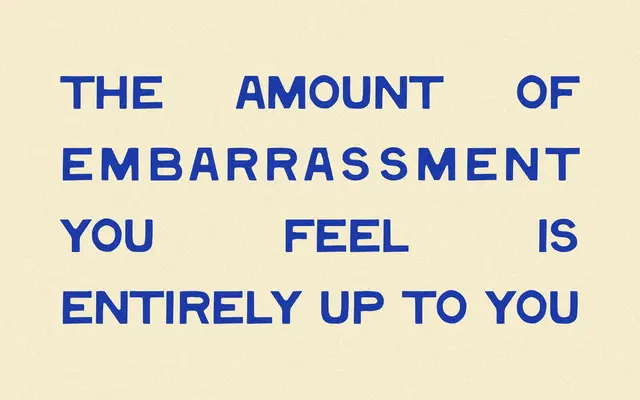
Dreamboat
Dreamboat specimen from Taylor Penton
A wide, soft-edged display sans in two weights, designed for headlines and branding work where personality matters more than neutrality.
Wide letterforms and softened edges give it an approachable, slightly casual character without tipping into novelty territory. Two weights, Thin and Regular, cover the essentials for display use, and the 151-glyph set handles basic Latin with a limited spread of accented characters. Suits packaging, logos and short headline copy where a warm, easygoing tone is the point.
Wide forms, soft edges and intentionally unrefined detail position this firmly as a display typeface; the lack of italic, limited glyph set and two-weight range reinforce its decorative, headline-focused purpose.